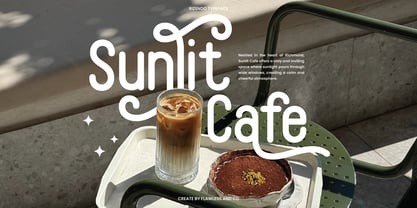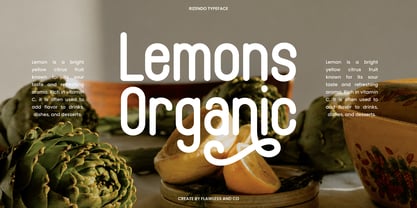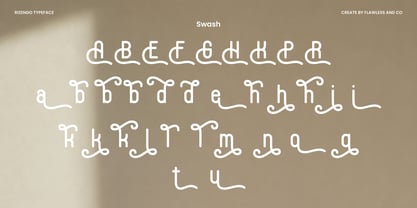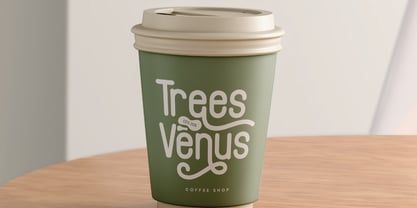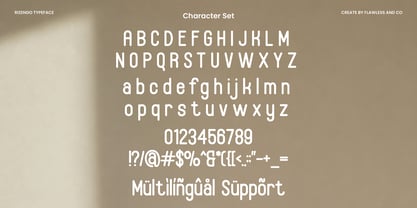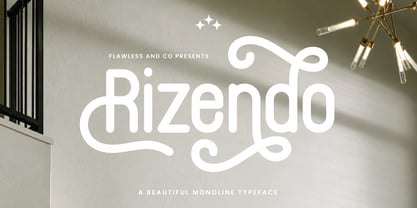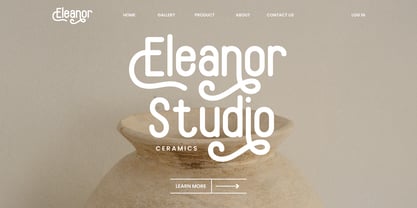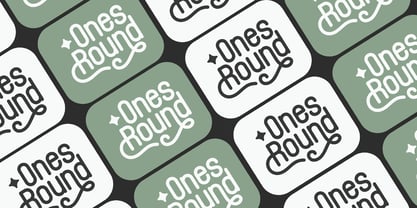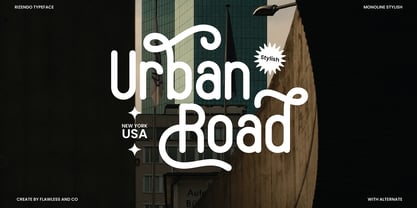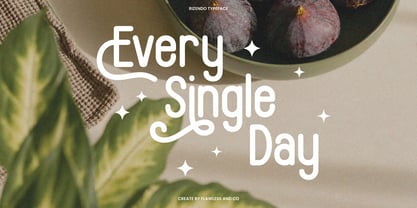
Rizendo
by Flawlessandco
The Rizendo Font Family was designed by Achmad Yani and published by Flawlessandco. Rizendo contains 1 styles. More about this family
RIZENDO is a charming and expressive monoline typeface designed to add character and elegance to your design work. With its rounded structure and flowing stylistic alternates, RIZENDO strikes the perfect balance between modern minimalism and handcrafted personality. Perfectly suited for branding, packaging, logos, lifestyle blogs, and stylish display compositions, RIZENDO brings a soft, welcoming feel that stands out in any creative project.
Features :
Multilingual, Uppercase alphabet A-Z, Lowercase alphabet a-z, Numbers 0-9, Some punctuation, Alternates & Ligatures
Designers: Achmad Yani
Foundry: Flawlessandco